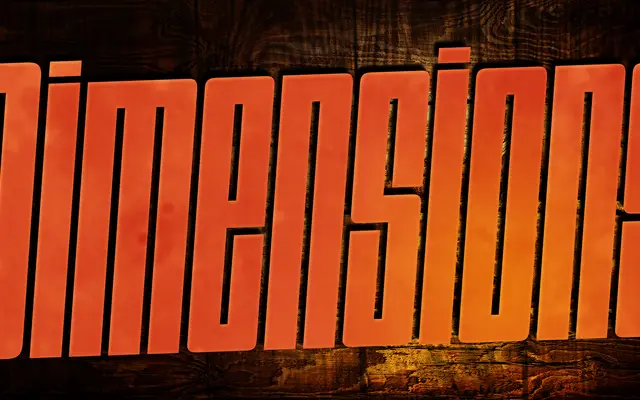
Dimensions specimen from Dharma Type
An extremely condensed display family evolved from the free Blackout font, offering seven weights with italics and small capitals for identity and logo work.
Originally released as the free Blackout font in 2005, the family was reworked and expanded into Dimensions in 2011, gaining a full range of seven weights each with roman and italic styles. It sits at the extreme end of condensed type, making it well suited to logotypes, fashion branding and music industry identities where vertical emphasis is wanted. OpenType small capitals are included across all styles, extending its typographic range beyond headline use.
An extremely condensed, multi-weight display family rooted in a bold blackout aesthetic, designed for logos and identity work rather than extended text setting.